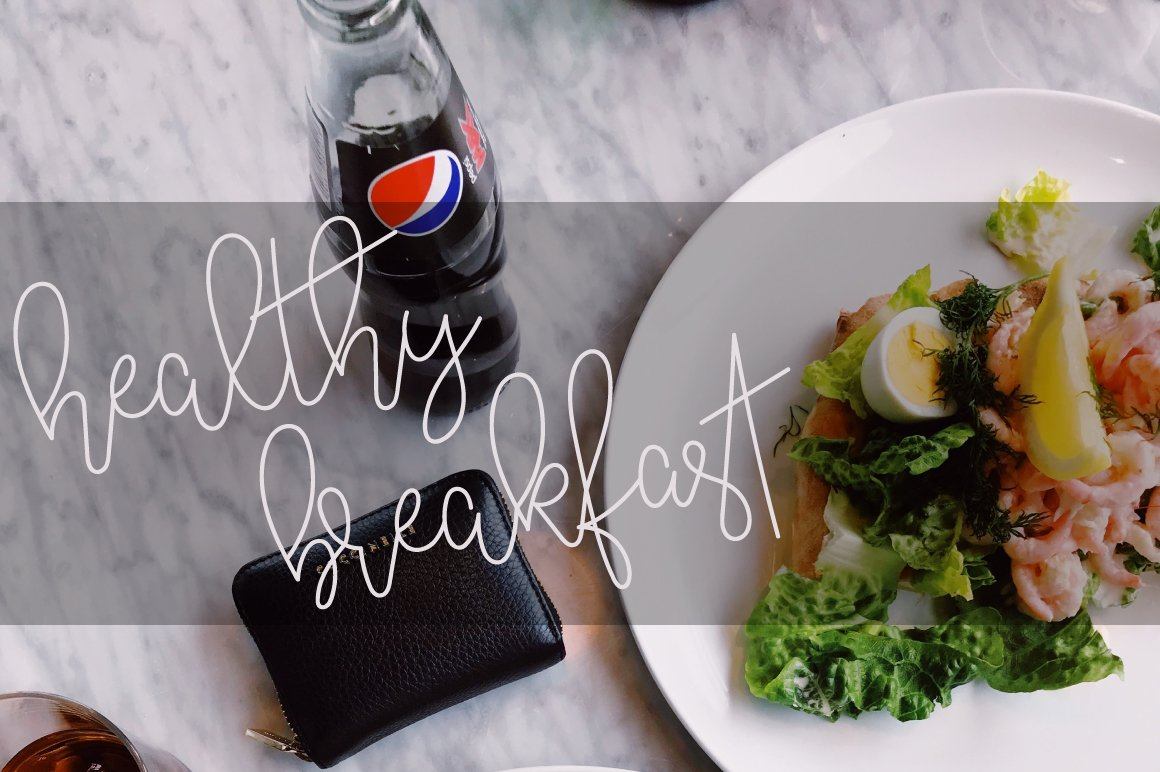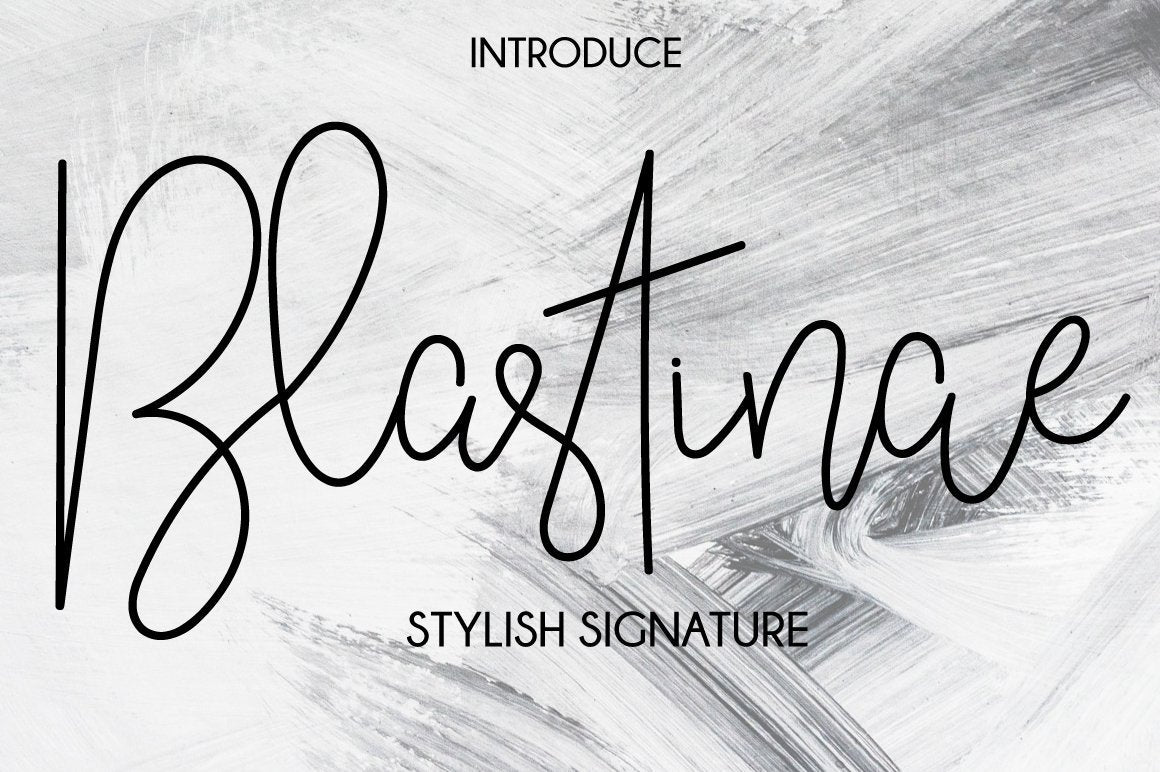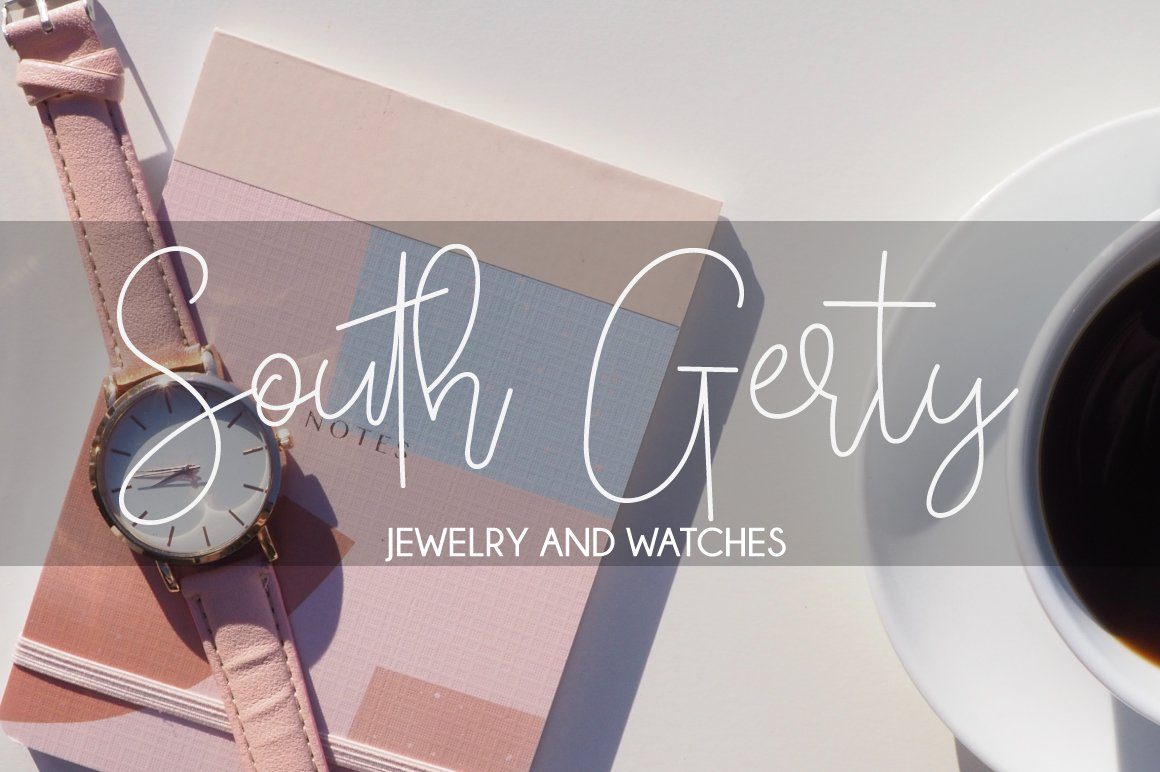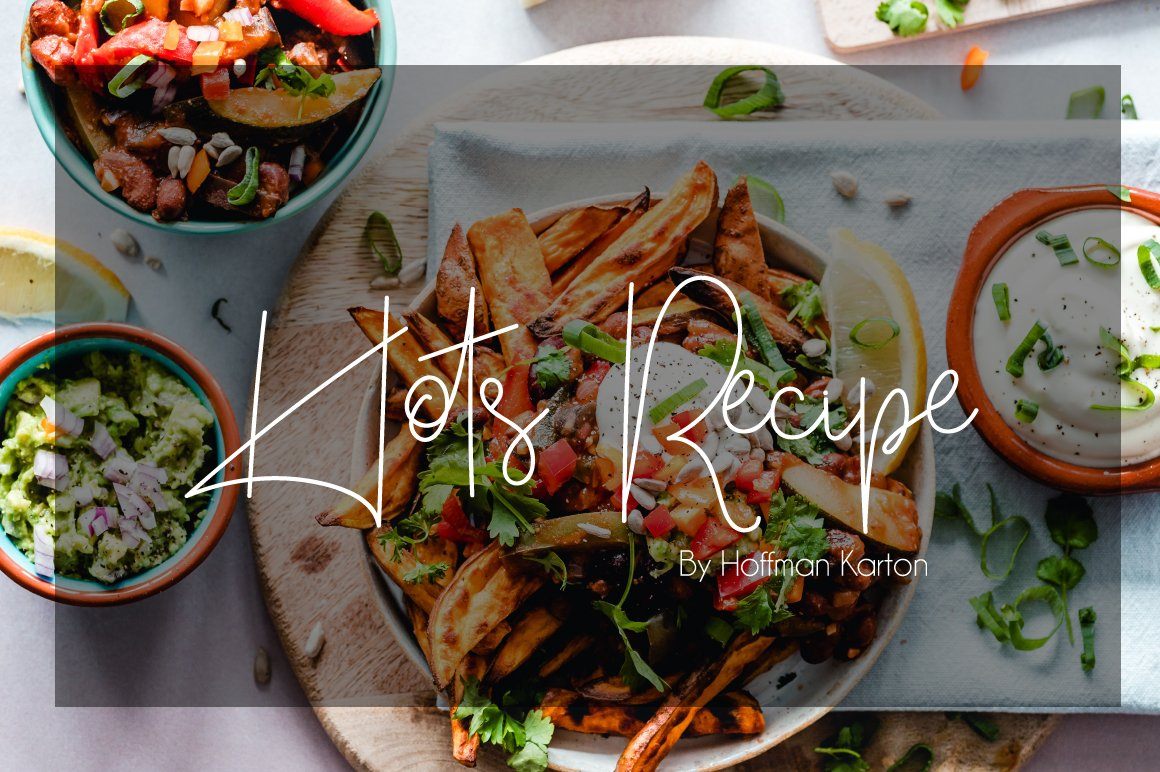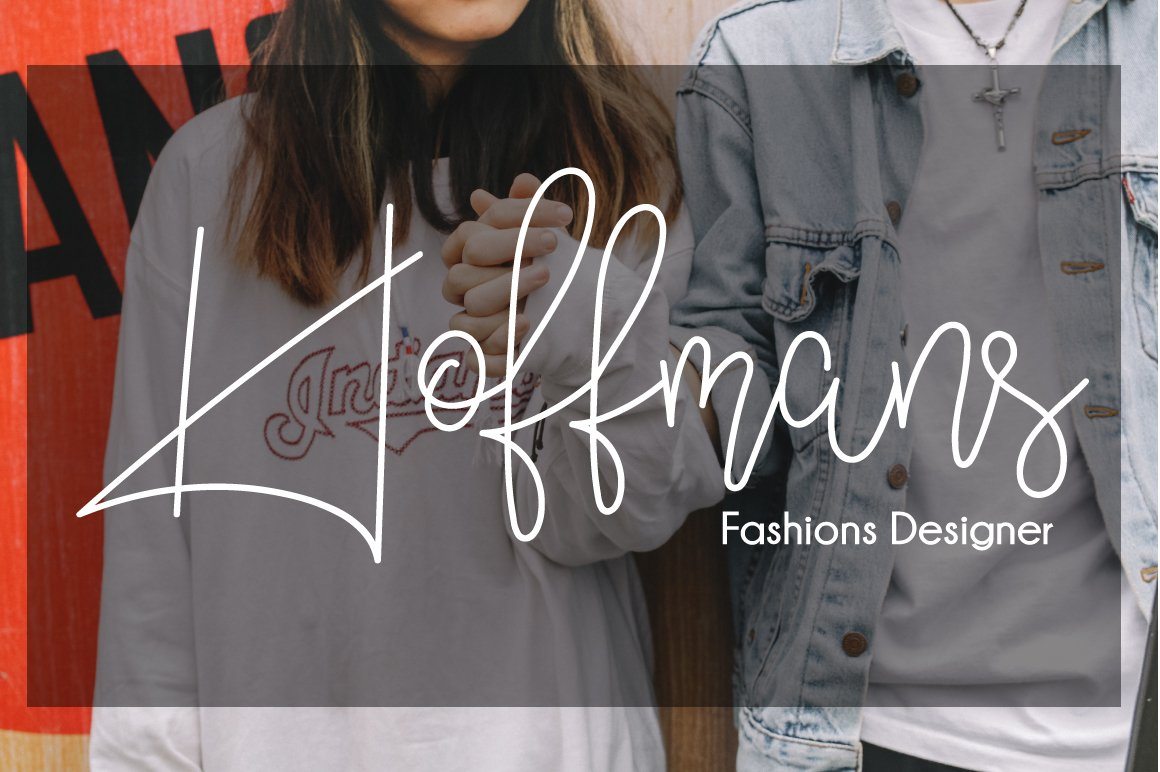
Blastinae Signature
About Blastinae Signature
Blastinae Signature is a elegant signature script with incredibly realistic & allows customers to instantaneously create a signature for themselves or for their clients. Blastinae Signature is perfect for branding projects, logo, wedding designs, social media posts, advertisements, product packaging, product designs, label, photography, watermark, invitation, stationery and any projects that need handwriting taste. What’s Included : Blastinae Signature (OTF/TTF/WOFF) Web Fonts Tons of glyphs 46 Ligature Stylistic alternate SSO1-SSO3 Works on PC & Mac Simple installations Accessible in the Adobe Illustrator, Adobe Photoshop, Adobe InDesign, even work on Microsoft Word. PUA Encoded Characters – Fully accessible without additional design software. Fonts include multilingual support for; ä ö ü Ä Ö Ü ß ¿ ¡ Hope you enjoy with our font!